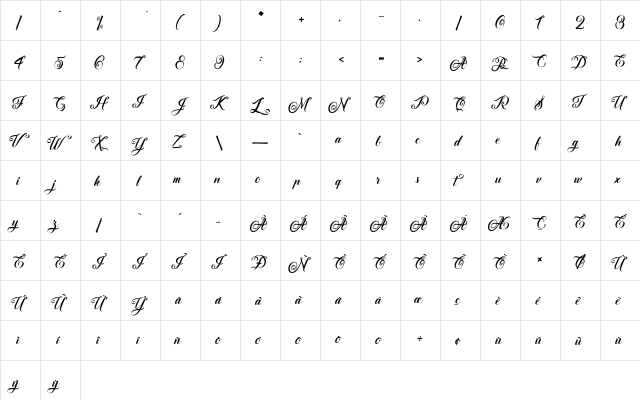
Afterschool Festival Regular
Design Context for Afterschool Festival Typeface
Afterschool Festival is a composed and adaptable typeface that performs quietly and consistently across a wide range of design contexts.